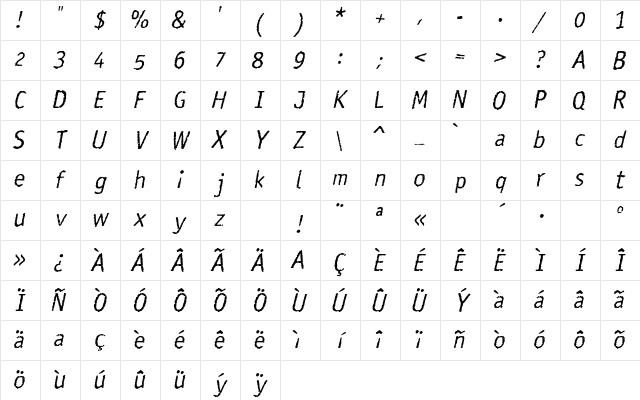
Rosango Italic Free Font
Rosango Italic
Design Context for Rosango
Rosango is a composed and adaptable typeface that performs quietly and consistently across a wide range of design contexts. The slanted form adds forward momentum and visual energy.